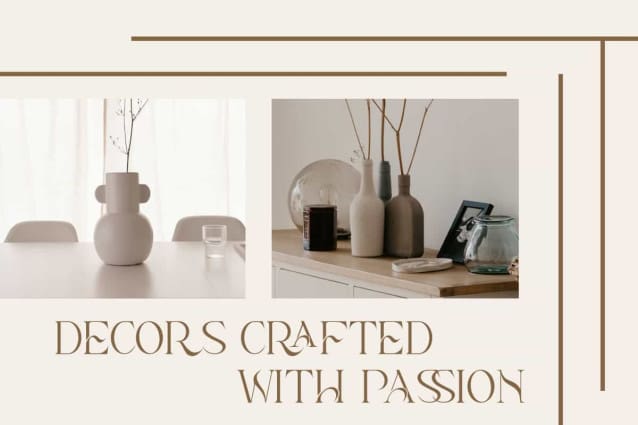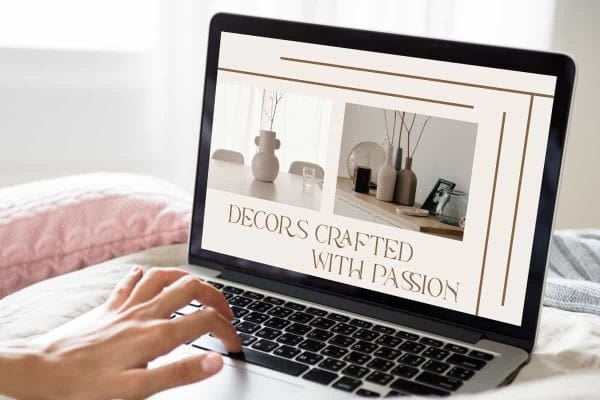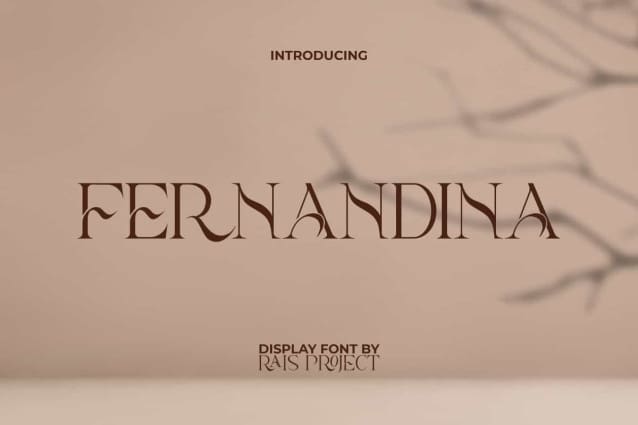
Fernandina Font
Fernandina Font is a beautiful aesthetic serif display font with sophisticated letters. This font leaves a beautiful feels because of its minimalist and a lovely lines. It will be good for any designs, such as brand image, cover, custom design, flyer, invitation, label, magazine, marketing material, menu, poster, product packaging, quotes, signage, stationery, website page, and more!
Fernandina Font including a complete set of Uppercase and Lowercase basic characters, Numerals, large range of Punctuation, and Ligature character. This font also suitable for various industries, such as advertising, beauty product, cafes, event or wedding organizer, fashion, florist, home furniture, marketing, photography, printing, publishing, spa and salon, etc.